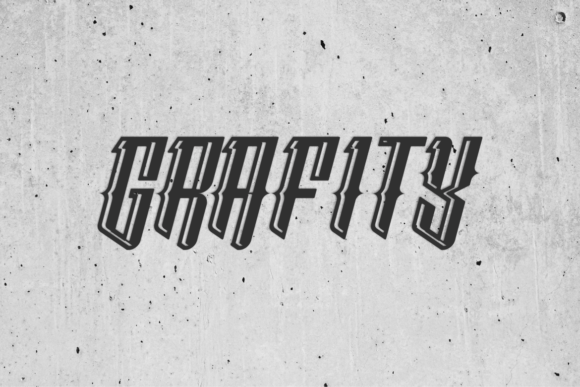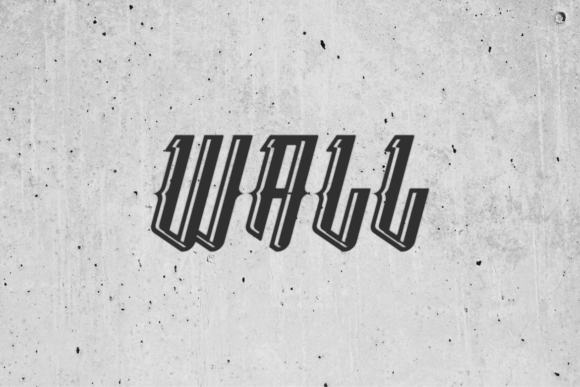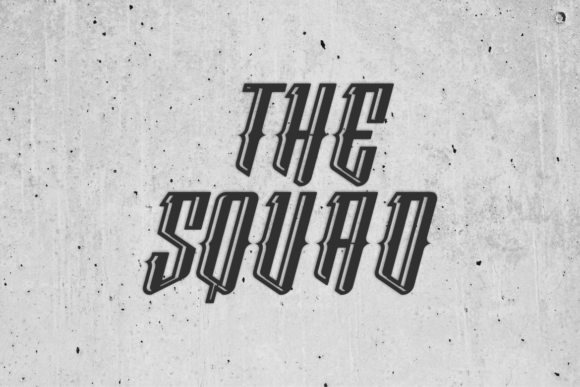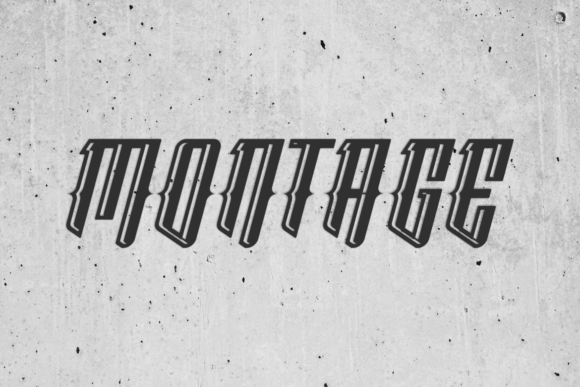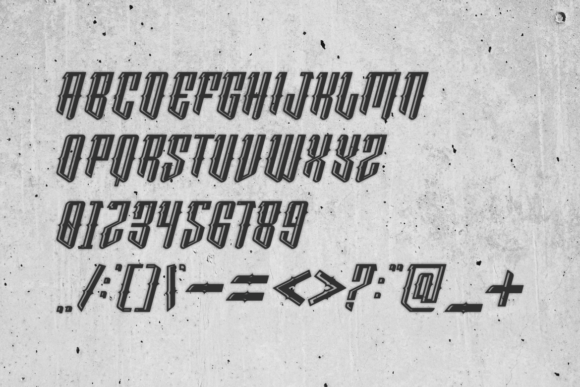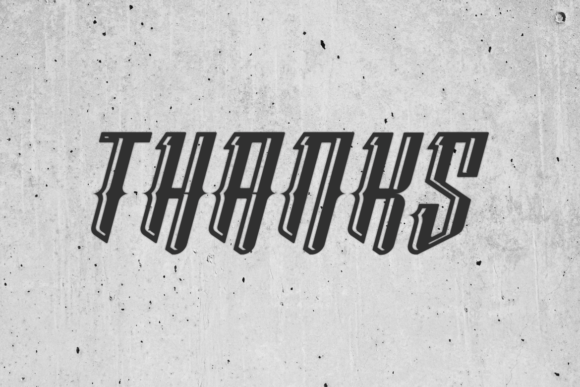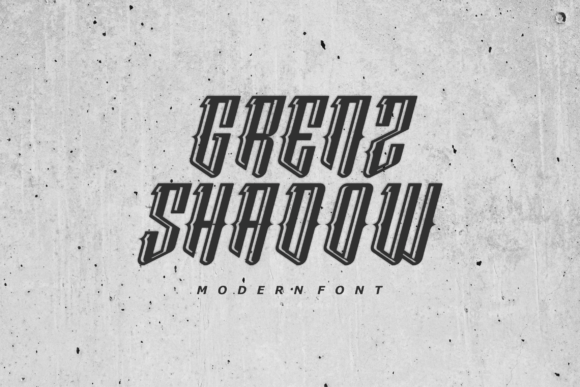
Discover the Elegance of Grenzshadow Font: A Vintage Shadowy Blackletter Masterpiece
In the realm of typography, certain fonts stand out for their unique blend of style, elegance, and versatility. Grenzshadow Font is one such typographic marvel that has been making waves in the design community. This vintage shadowy blackletter font is not just a visual treat but a tool that can elevate a wide array of design projects. Whether you’re a seasoned designer or a crafty DIY enthusiast, Grenzshadow is about to become your go-to font for creating stunning, classy, and elegant designs.
What is Grenzshadow Font?
Grenzshadow Font is a distinctive typeface characterized by its blackletter style with a shadowy effect, giving it a vintage yet timeless appeal. The font’s design is deeply rooted in traditional blackletter typography, known for its dramatic flourishes and intricate details. However, what sets Grenzshadow apart is its subtle shadow effect, which adds depth and a sense of dimensionality to the text. This unique combination results in a font that exudes elegance and sophistication, making it perfect for projects that demand a touch of class.
Key Features of Grenzshadow Font
- Unique Vintage Style: Grenzshadow boasts a vintage aesthetic that is both nostalgic and captivating. Its shadowy blackletter design gives it a standout appearance that can add a touch of drama and elegance to any project.
- Versatility: One of the key strengths of Grenzshadow is its versatility. It can be used across a wide range of projects, from traditional applications like stationery, logos, and wedding designs, to modern digital projects such as website headers and packaging design.
- Elegance and Sophistication: The font’s elegant and sophisticated look makes it ideal for designs that require a high level of refinement. Whether you’re designing a magazine cover, a book title, or a brand logo, Grenzshadow can help you achieve a look that is both beautiful and classy.
- Easy to Read: Despite its ornate appearance, Grenzshadow is surprisingly easy to read, making it a practical choice for body text as well as headlines.
Uses of Grenzshadow Font
The versatility of Grenzshadow Font makes it suitable for a myriad of design projects. Here are some of the ways you can use this beautiful font:
- Signature and Stationery: Add a touch of elegance to your letters and signatures with Grenzshadow.
- Logo Design: Create a memorable brand logo that stands out with the unique style of Grenzshadow.
- Wedding Designs: Use Grenzshadow for wedding invitations, banners, and other decorative elements to add a vintage charm to your wedding decor.
- Typography Quotes: Highlight inspirational or thought-provoking quotes with a stylish and elegant font.
- Magazine or Book Covers: Give your publication a distinctive look that captures attention with Grenzshadow on the cover.
- Website Headers: Elevate your website’s design with elegant headers that reflect your brand’s personality.
- Clothing and Branding: Incorporate Grenzshadow into your clothing designs or brand packaging to give them a unique and sophisticated look.
Tips for Using Grenzshadow Font Effectively
To make the most of Grenzshadow Font, consider the following tips:
- Pair with Simpler Fonts: When using Grenzshadow for headlines, pair it with a simpler font for body text to maintain readability.
- Adjust Size and Color: Experiment with different sizes and colors to maximize the impact of Grenzshadow in your designs.
- Consider the Background: Ensure that the background of your design complements the color and style of Grenzshadow to enhance its visibility and aesthetic appeal.
Grenzshadow Font is a remarkable addition to any designer’s toolkit. Its unique blend of vintage charm, elegance, and versatility makes it an excellent choice for a wide range of projects. Whether you’re looking to create a stunning logo, an elegant wedding invitation, or a captivating book cover, Grenzshadow can help you achieve your design goals with style. Discover the beauty and potential of Grenzshadow Font and elevate your designs to new heights of sophistication and class.